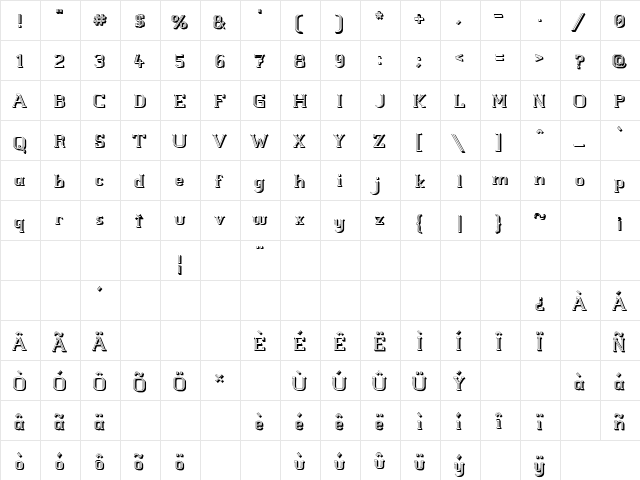
White Line Fever 3D 1.00 Regular Font Preview
White Line Fever 3D 1.00 Regular
Design Context for White Line Fever 3D 1.00 Typeface
White Line Fever 3D 1.00 takes a measured approach to typography — its balanced proportions and neutral character make it a reliable workhorse for both digital and print work.
Pro Tip: Use White Line Fever 3D 1.00 in both headline and body roles to test its range before committing to a single application.